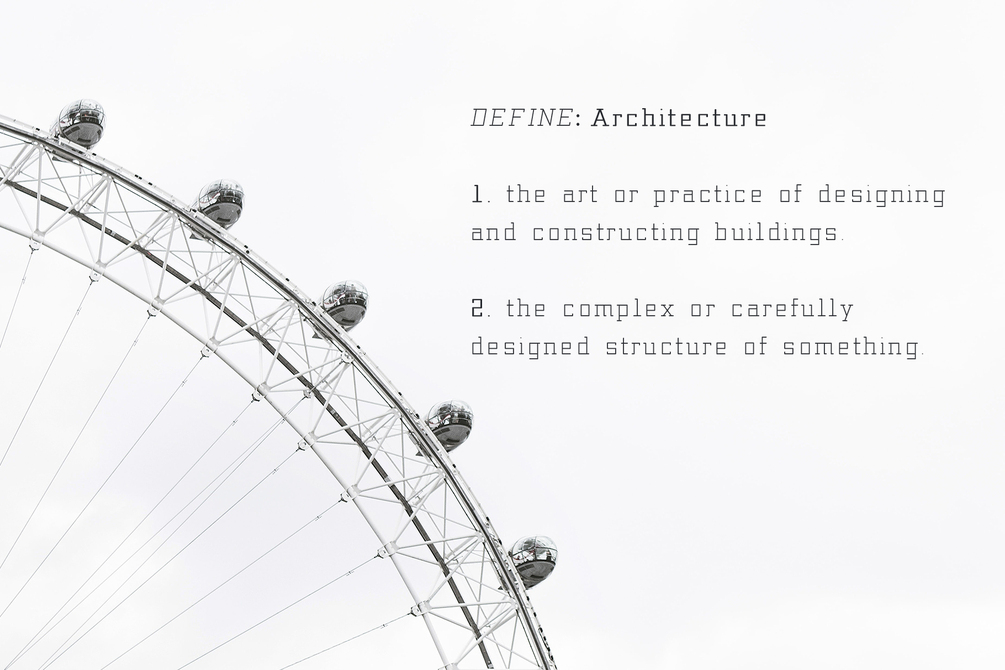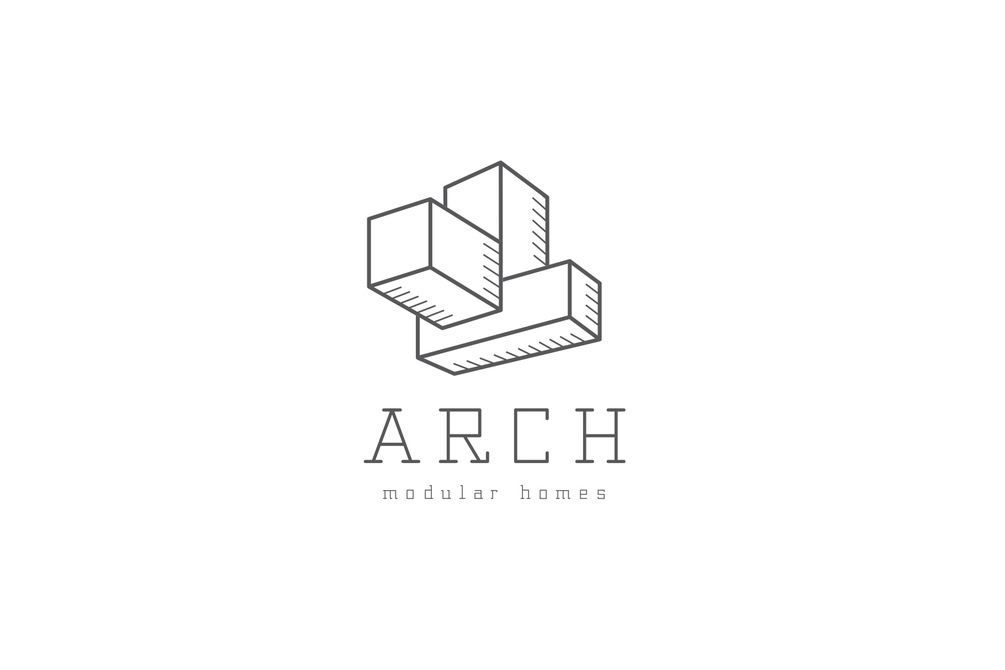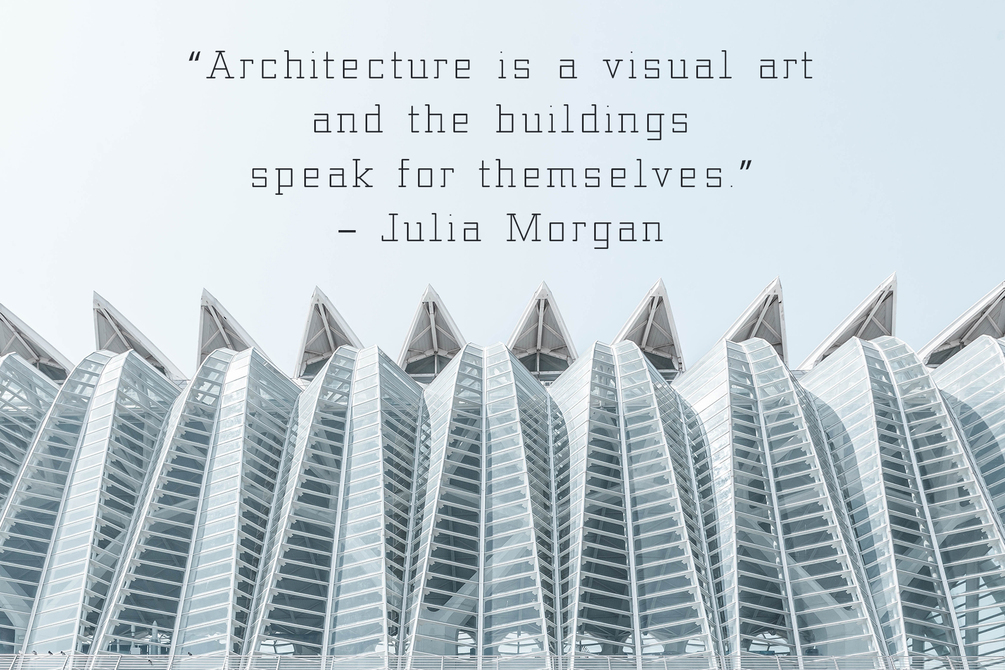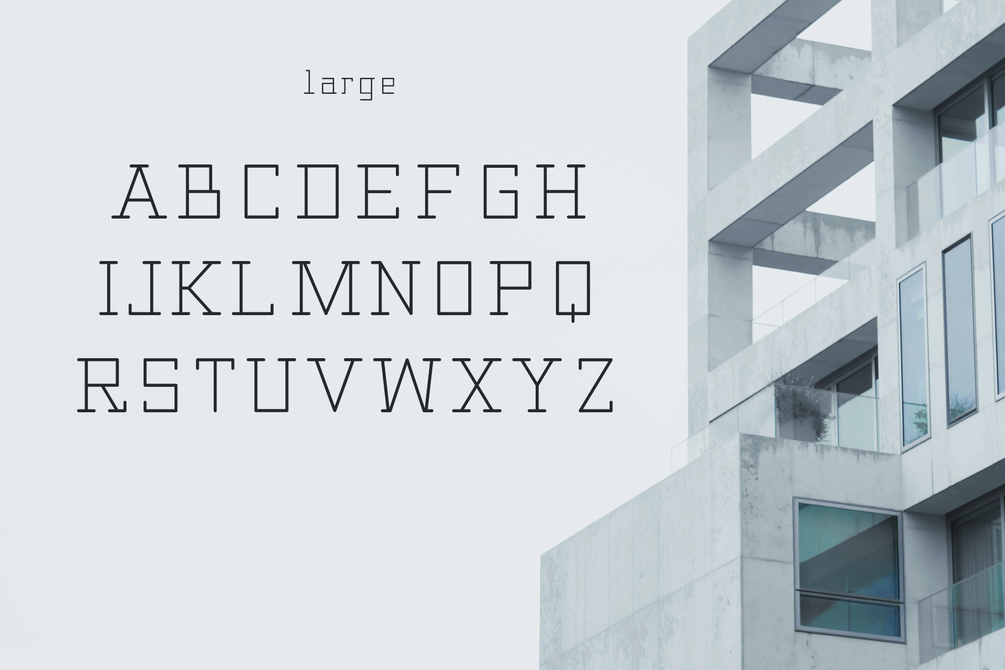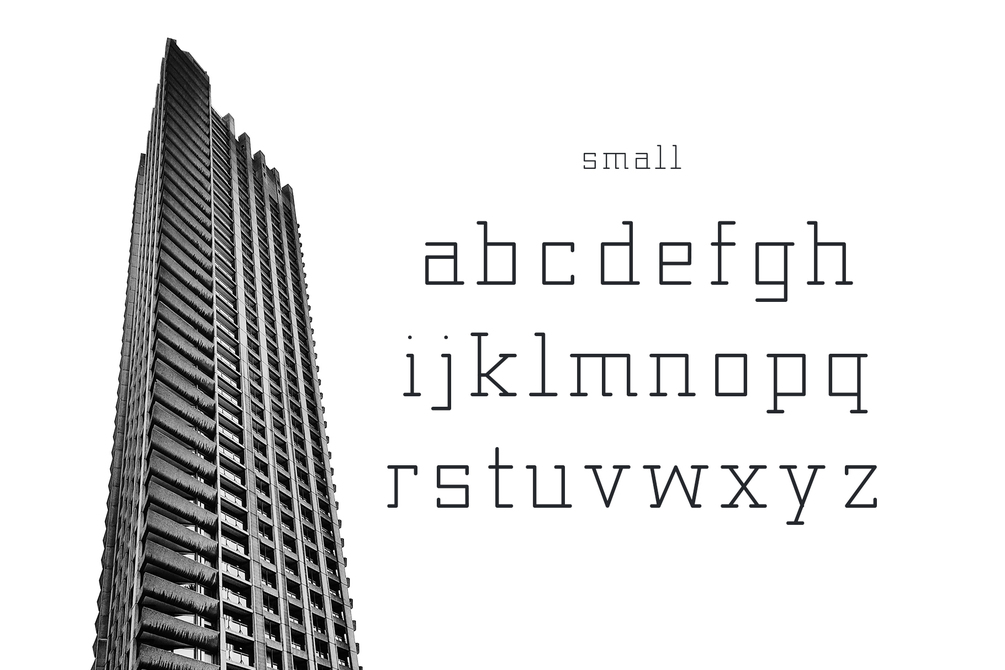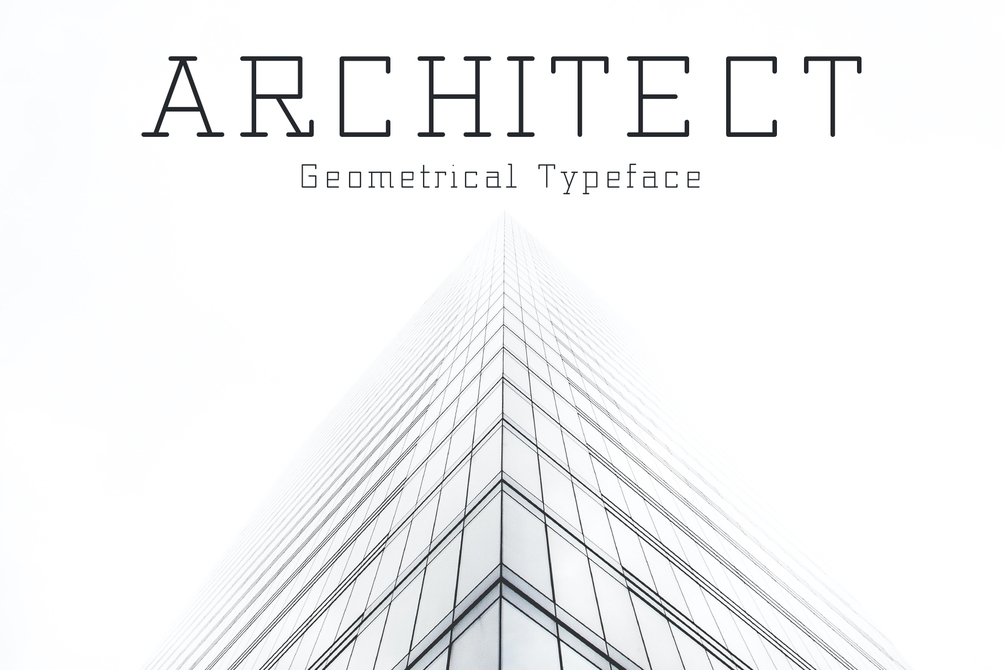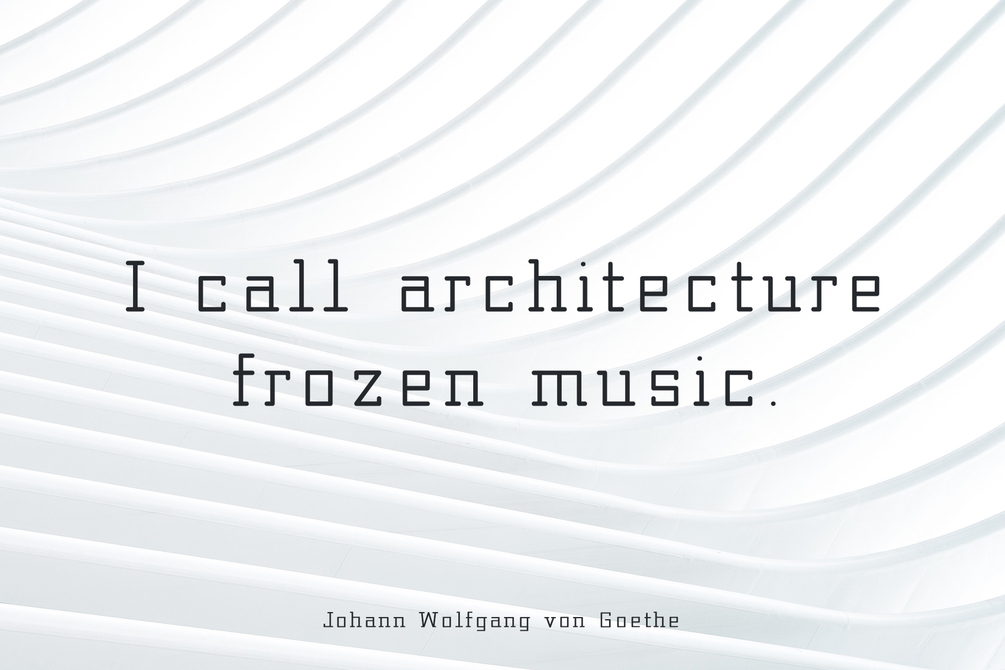
Architect Typeface
Architect is a fun digital typeface inspired by the early era of personal computers. This font is perfect for impactful headlines, logos, layouts and content. Architect will pair beautifully with many fonts and may work well with whatever project you're working on. Be sure to play with the font below to find out. ;)
- Looks very visible when small.
- Minimalistic and beautiful